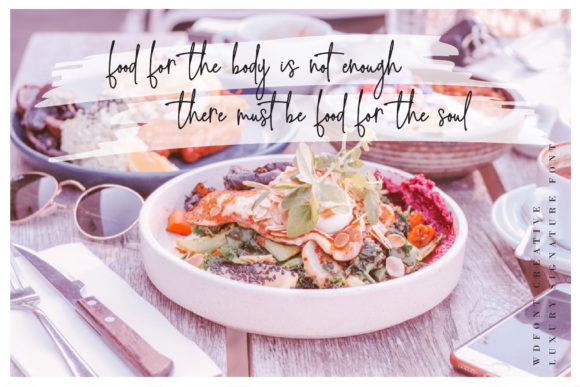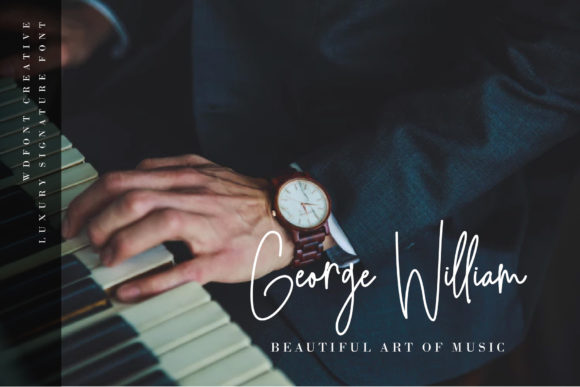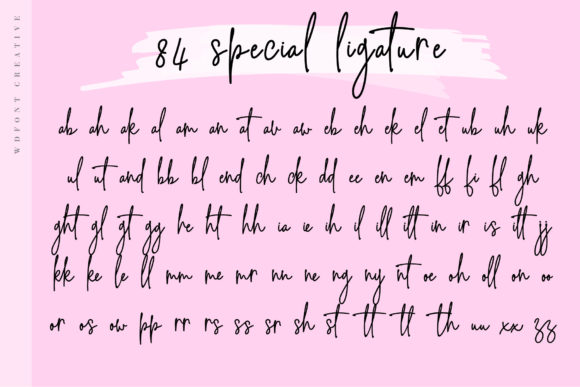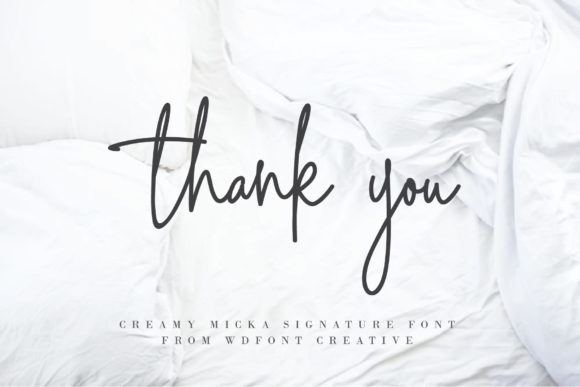
Creamy Micka Font
About Creamy Micka Font
Creamy Micka is a beautiful handwritten font with a luxurious feel. It will add an authentic twist to any design project!